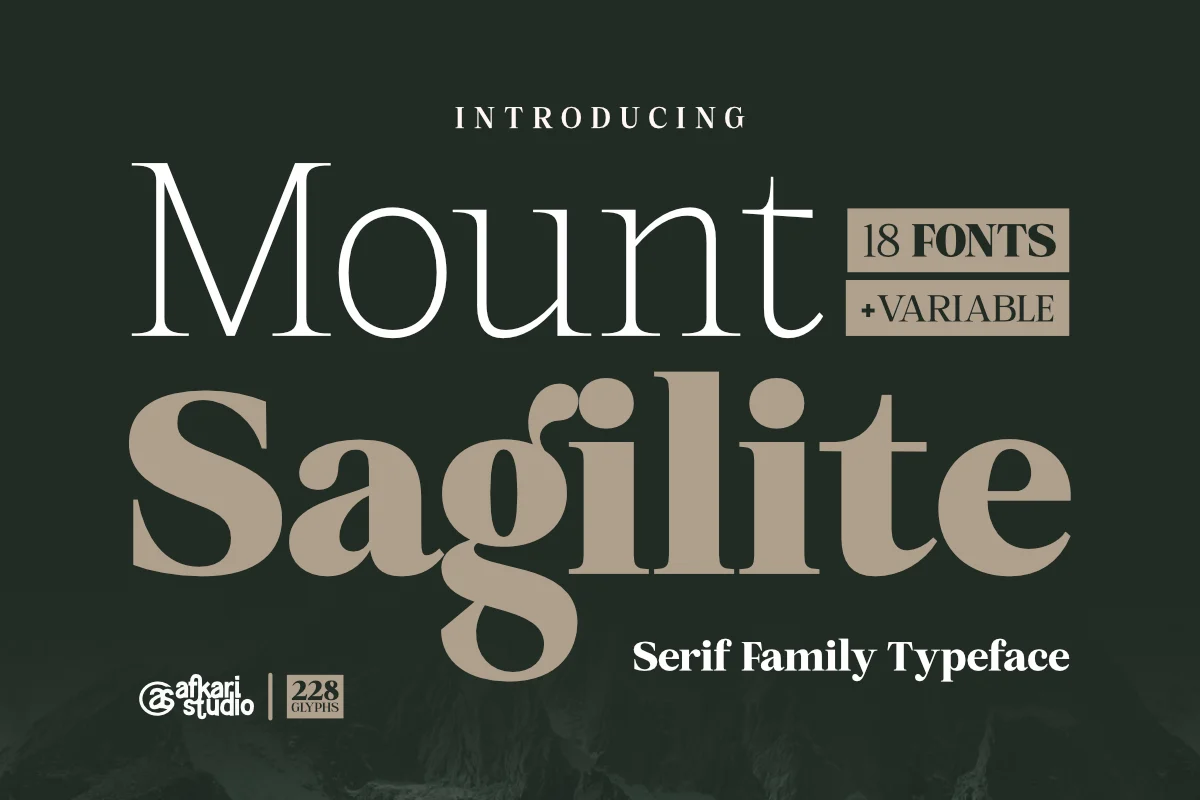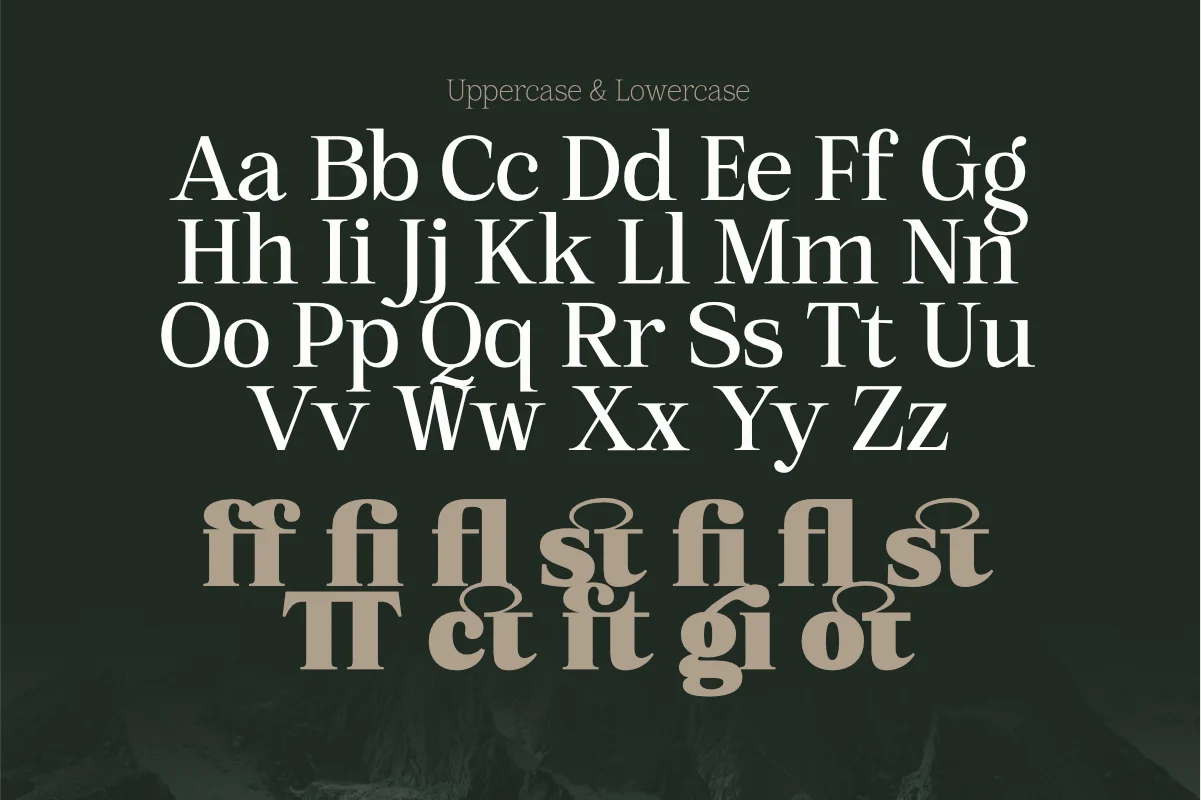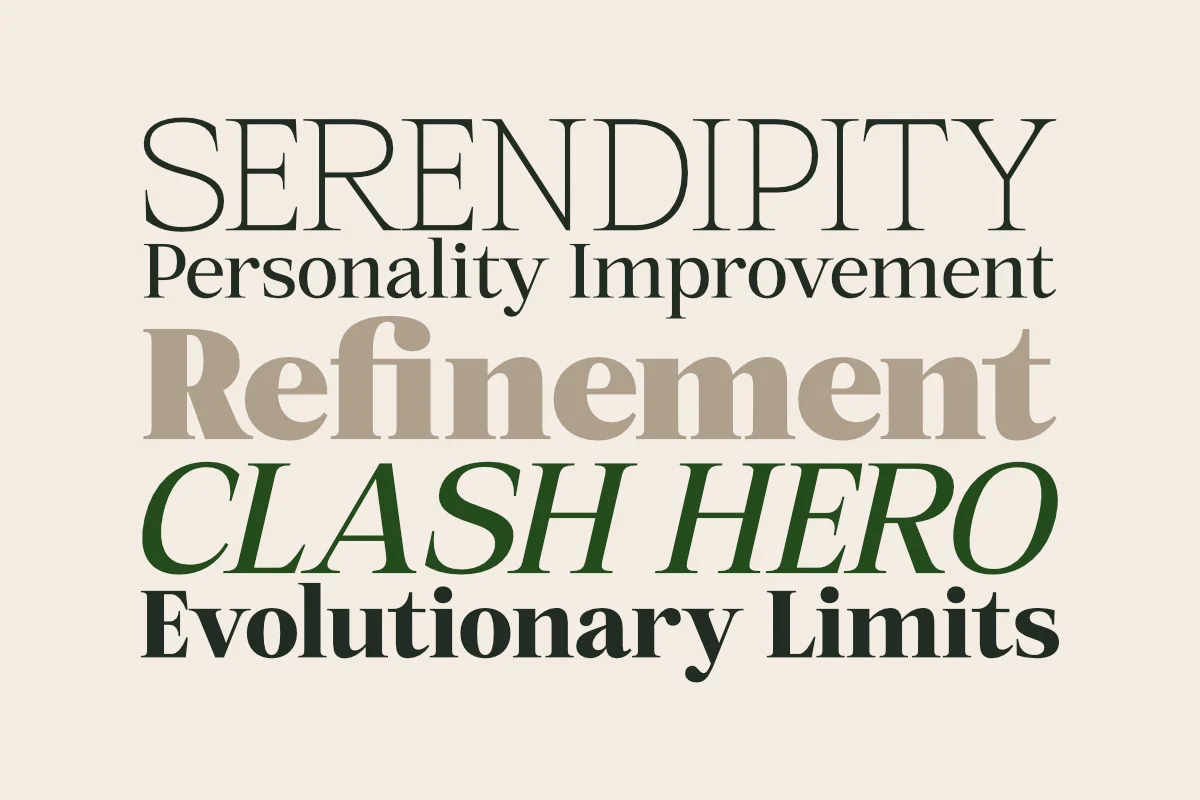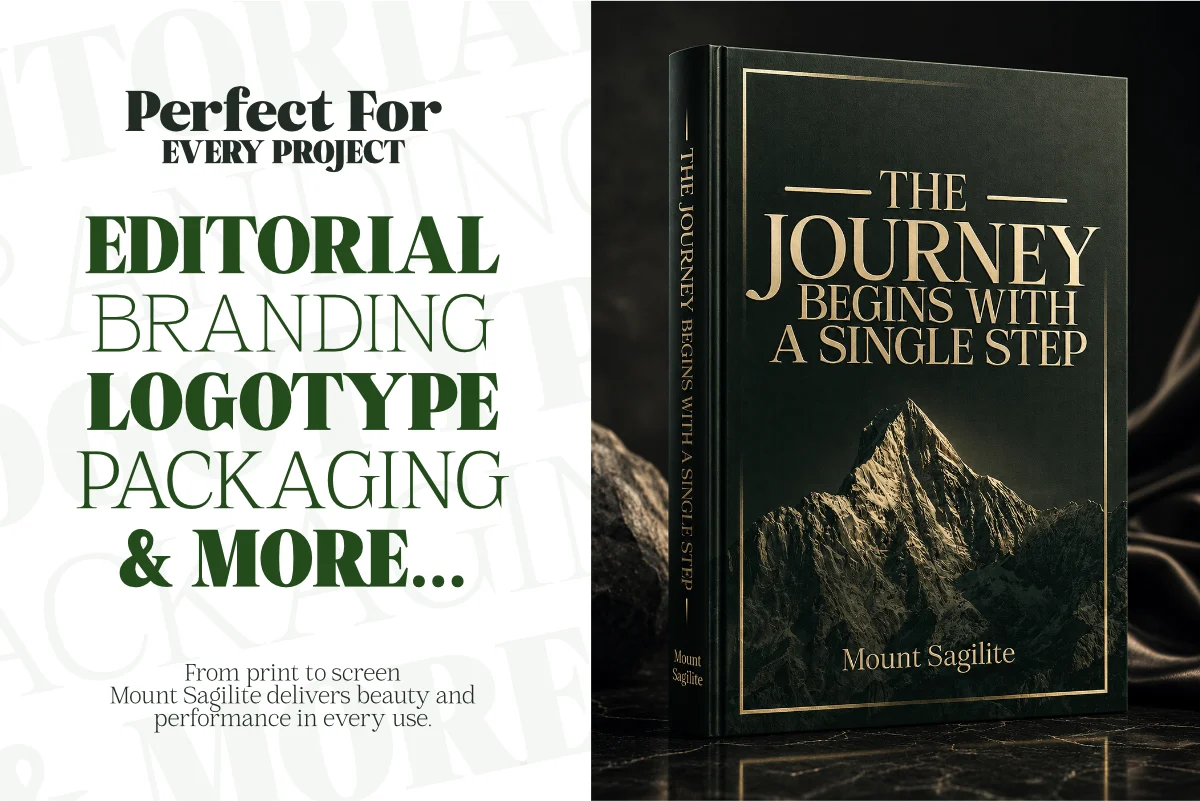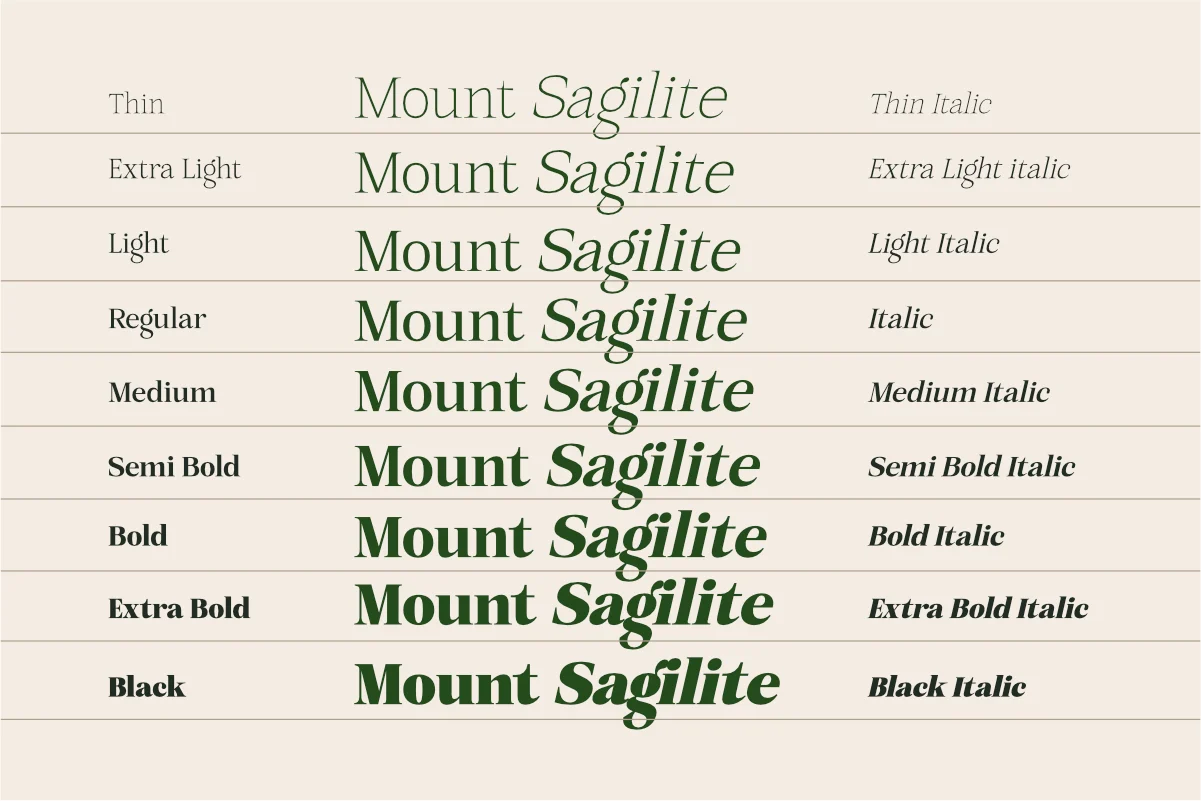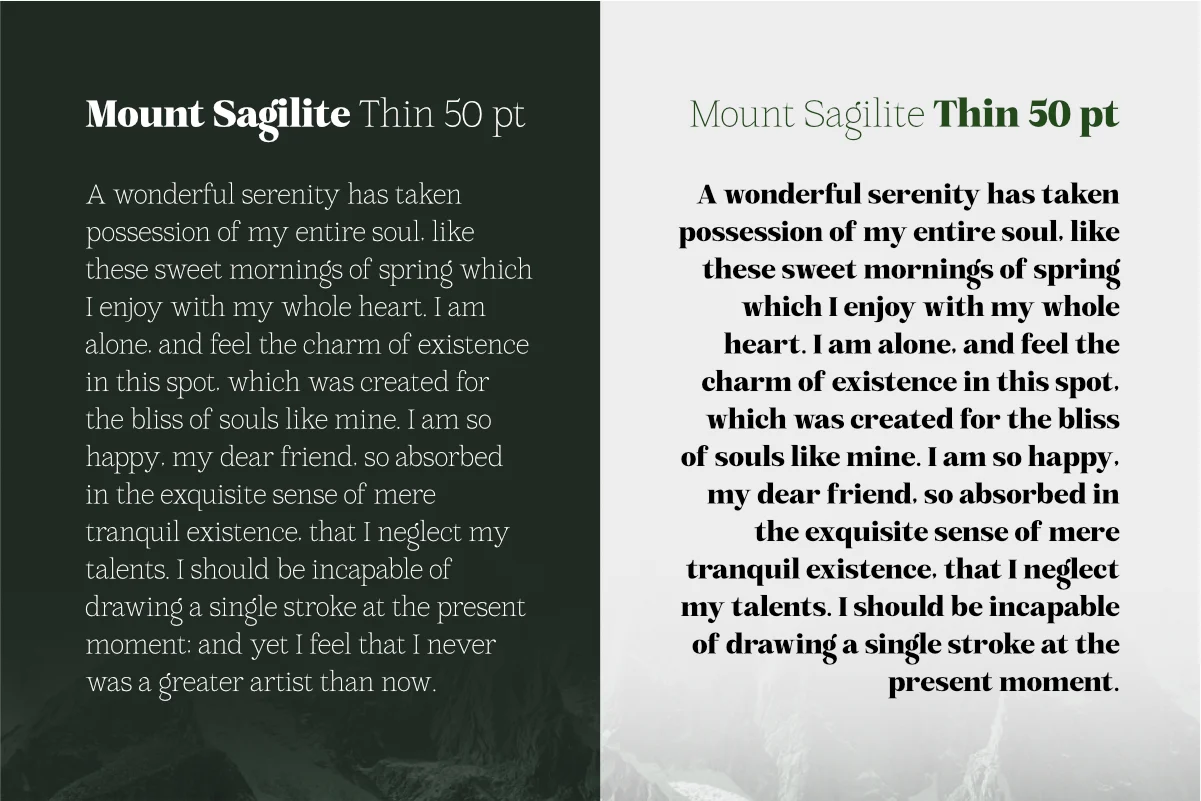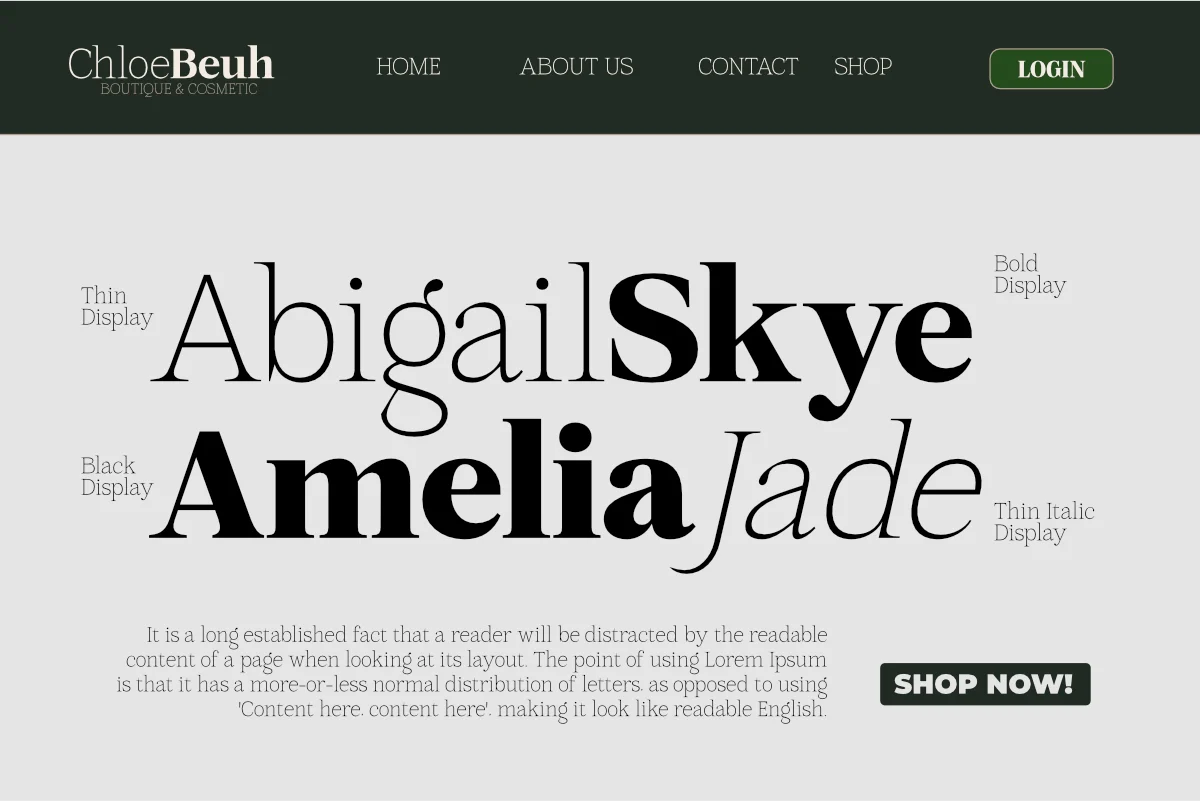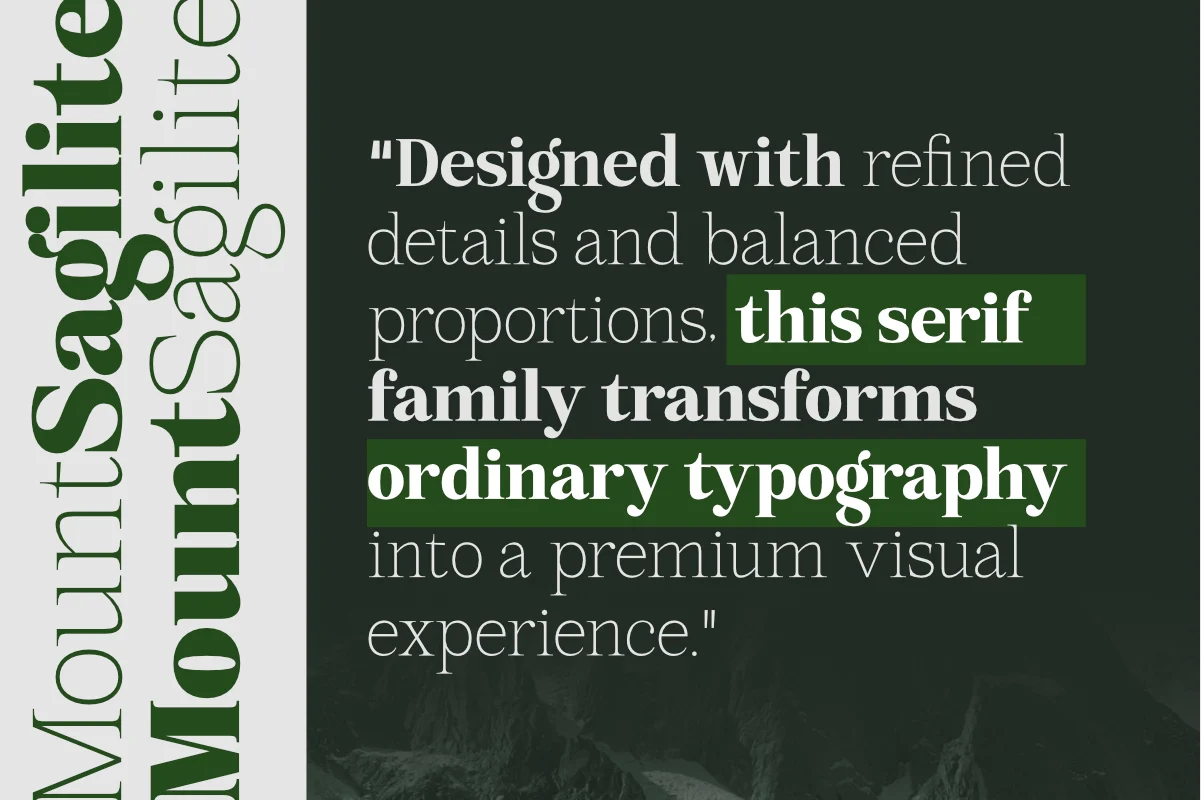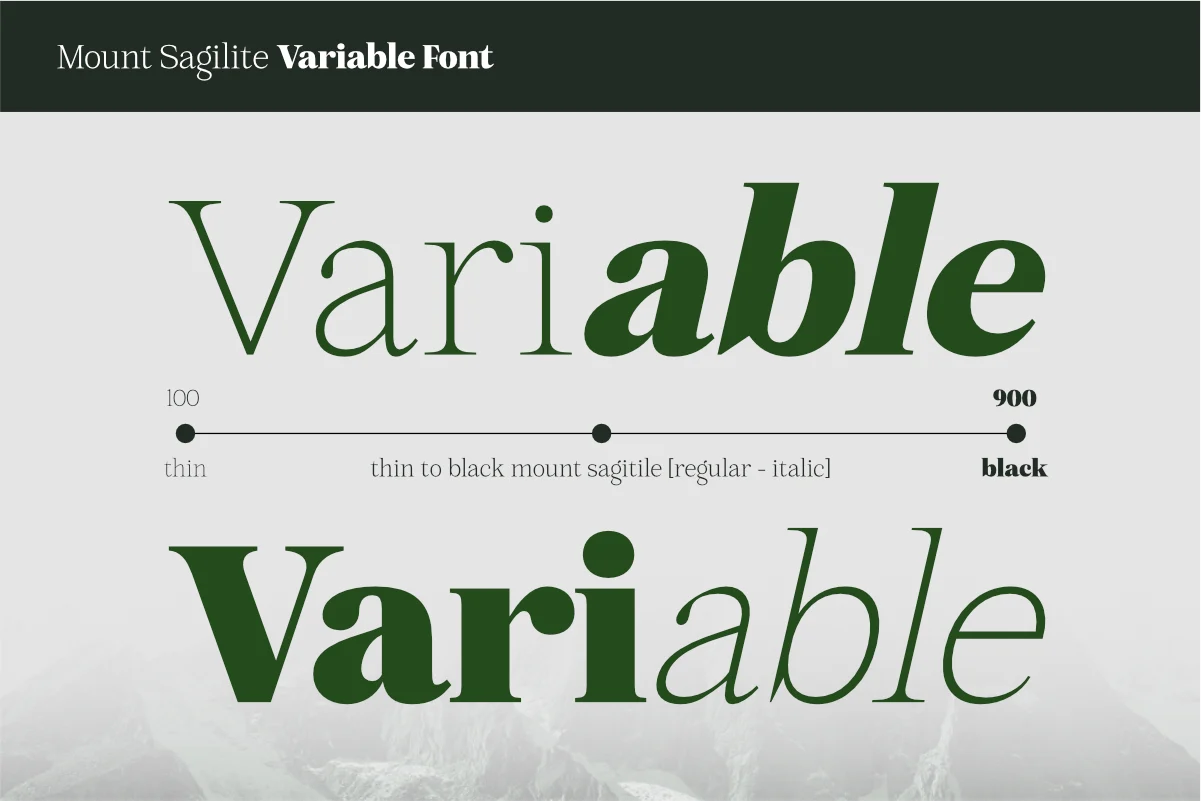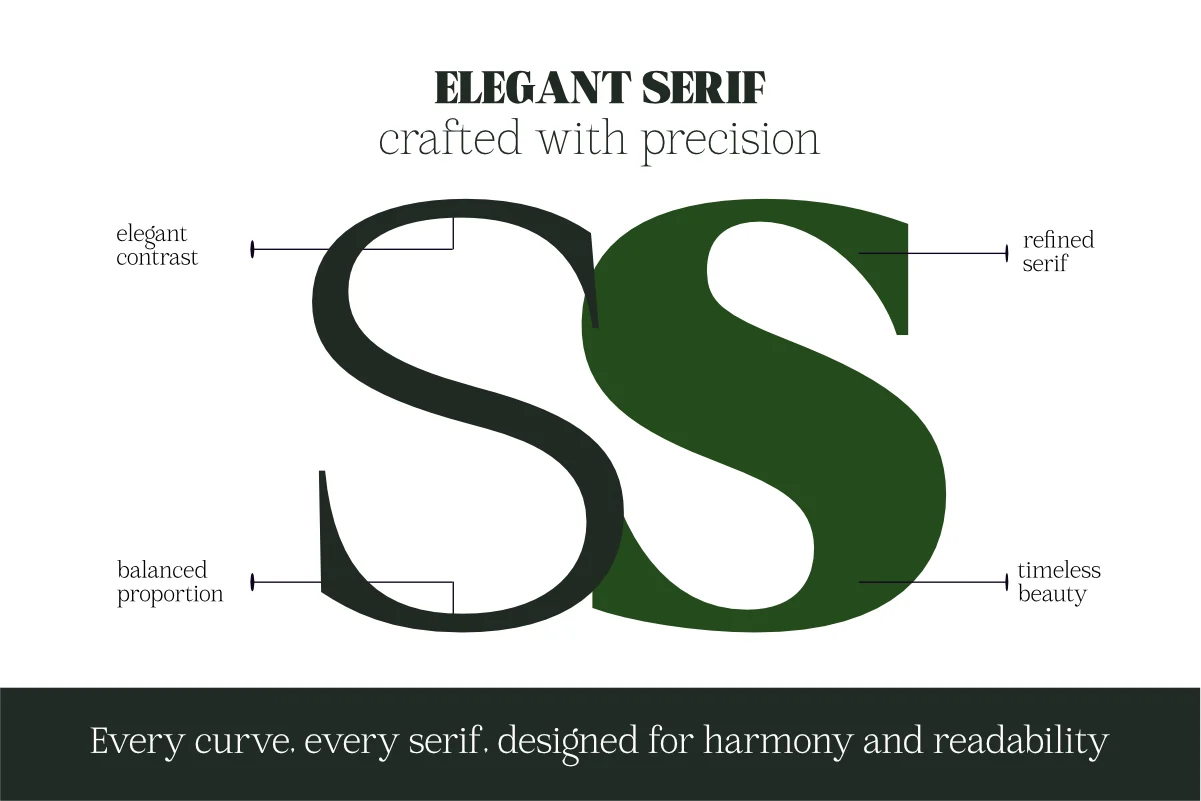
Mount Sagilite is a sophisticated modern serif family typeface designed to bring elegance, versatility, and timeless beauty to every creative project. Featuring 18 meticulously crafted styles plus a fully functional Variable Font, Mount Sagilite offers exceptional flexibility for designers, branding specialists, publishers, and creative professionals seeking premium typography with refined character.
Elegant Modern Serif Design for Professional Projects
Inspired by luxury editorial design and contemporary branding trends, this serif family combines classic proportions with modern details, resulting in a typeface that feels both distinguished and highly relevant. Every curve, serif, and stroke has been carefully developed to create a harmonious balance between readability and visual impact.
Complete Font Family with 18 Styles and Variable Font
With a complete range of weights from delicate thin styles to powerful black variations, Mount Sagilite adapts effortlessly across various design applications. The included Variable Font technology allows smooth weight adjustments, enabling precise typographic control while optimizing workflow and performance.
Whether you need subtle typography for elegant layouts or bold letterforms for impactful branding, Mount Sagilite provides the flexibility required for modern creative work.
Perfect for Luxury Branding, Editorial Design, and Packaging
Mount Sagilite is perfect for luxury branding, logo design, fashion magazines, editorial layouts, book covers, packaging design, cosmetic branding, wedding stationery, high-end marketing materials, social media graphics, website headers, business presentations, and premium product packaging.
Its elegant appearance helps establish a strong visual identity while maintaining excellent readability across both print and digital environments. This versatility makes Mount Sagilite an excellent choice for brands that value sophistication and professionalism.
Why Choose Mount Sagilite?
Whether you’re crafting a luxury fashion campaign, designing a premium logo, building an upscale brand identity, or creating sophisticated editorial content, Mount Sagilite delivers the professional aesthetic needed to elevate your work and leave a lasting impression.
Highlighted Features
- 18 Font Weights from Light to Black, including Italics
- Uppercase and Lowercase Characters
- Numbers and Punctuation
- Clean and Contemporary Letterforms
- Excellent Readability Across Sizes
- Multilingual Support: ä ö ü Ä Ö Ü ß ¿ ¡